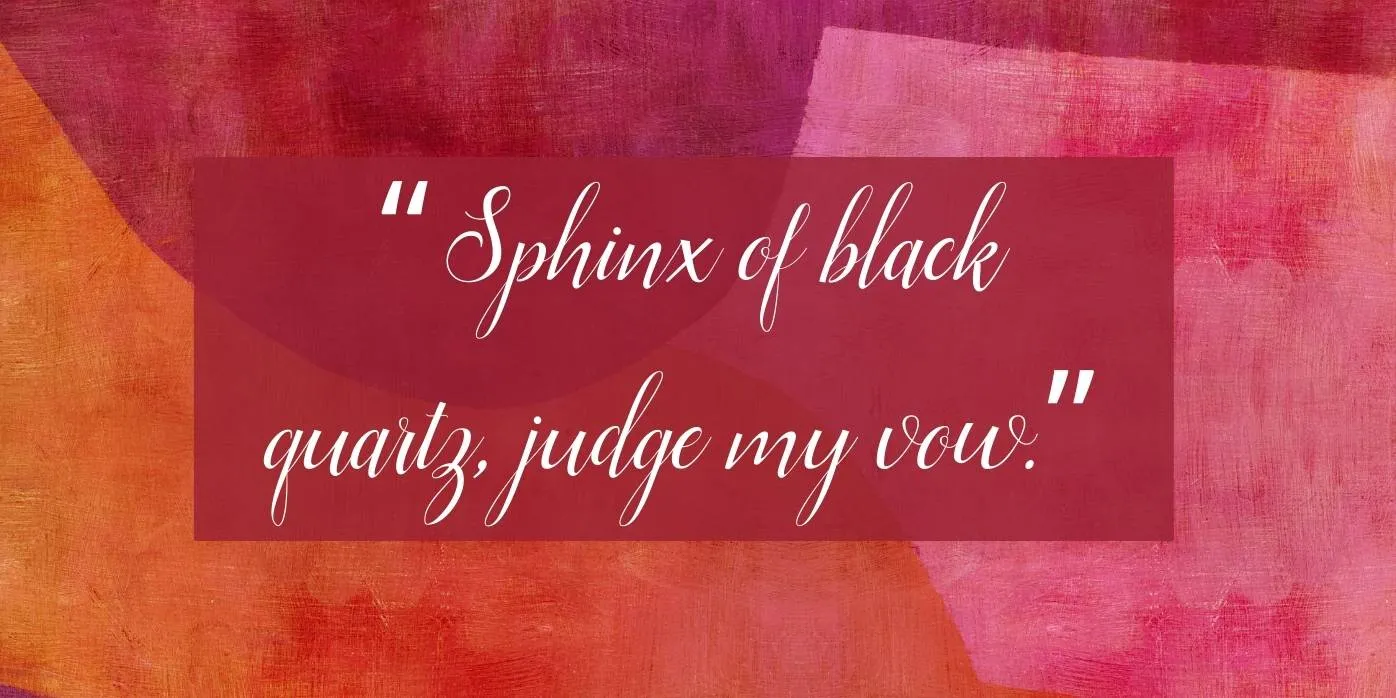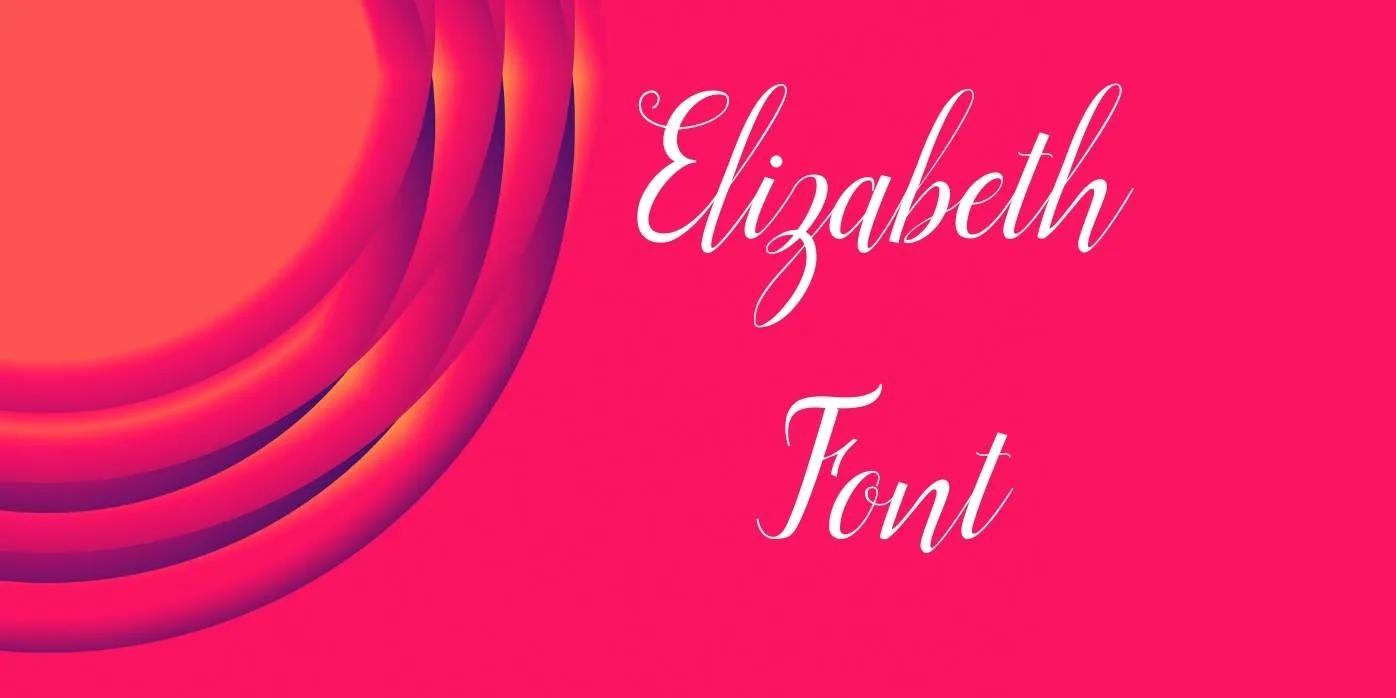
Elizabeth Font
Elizabeth Font was developed by Unicode Studio. This amazing typeface belongs to the Script font family. It has a very extensive glyph coverage, supports many languages and OpenType features. This stunning typeface is an excellent resource for learning how to use all the characters this typeface has to offer.
This cute Font is best for anyone looking to learn more about this typeface. This awesome Font is perfect for any project that needs a touch of elegance. With its wide range of characters, OpenType features, and styles. This amazing typeface is a Google Font.